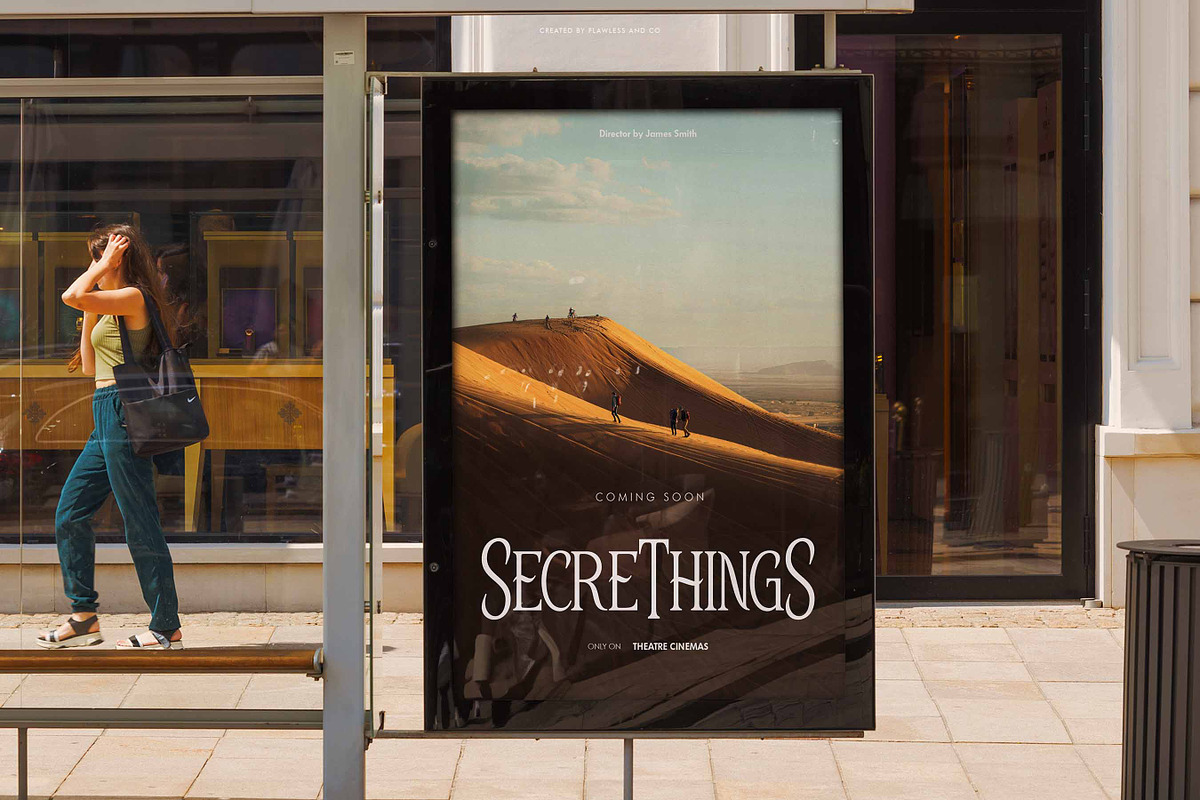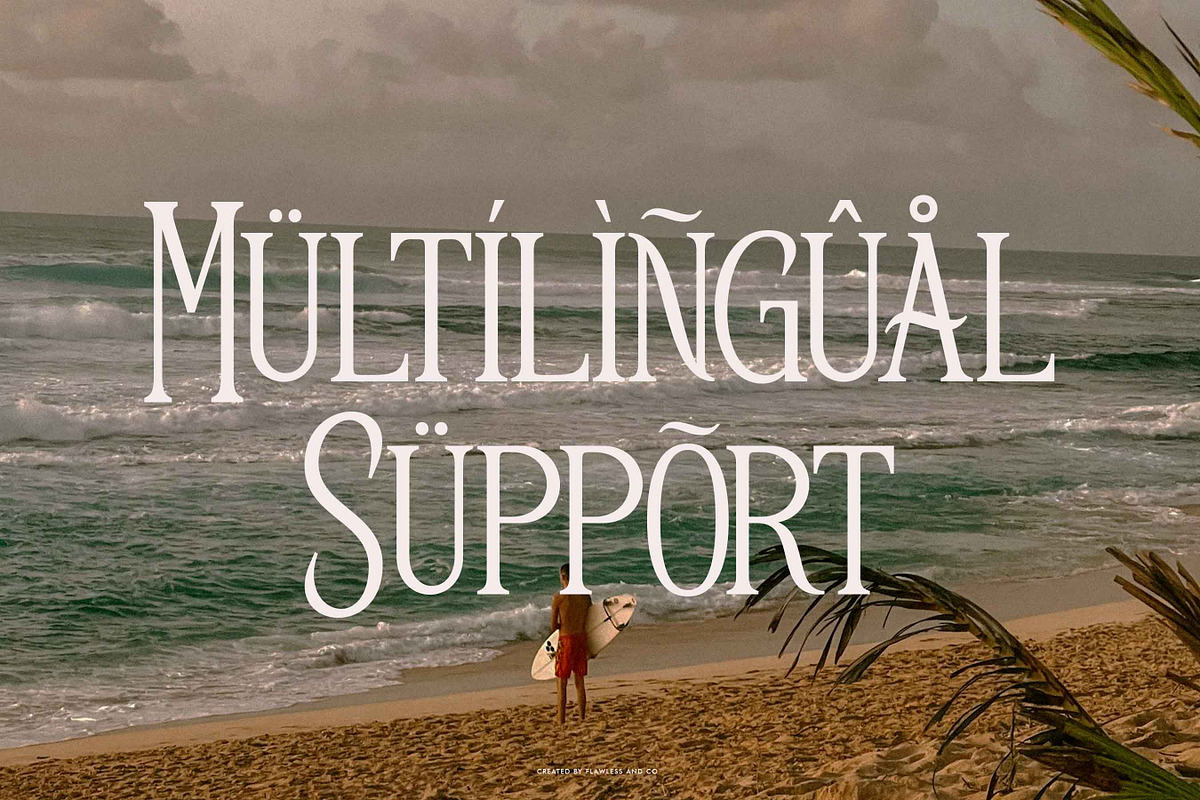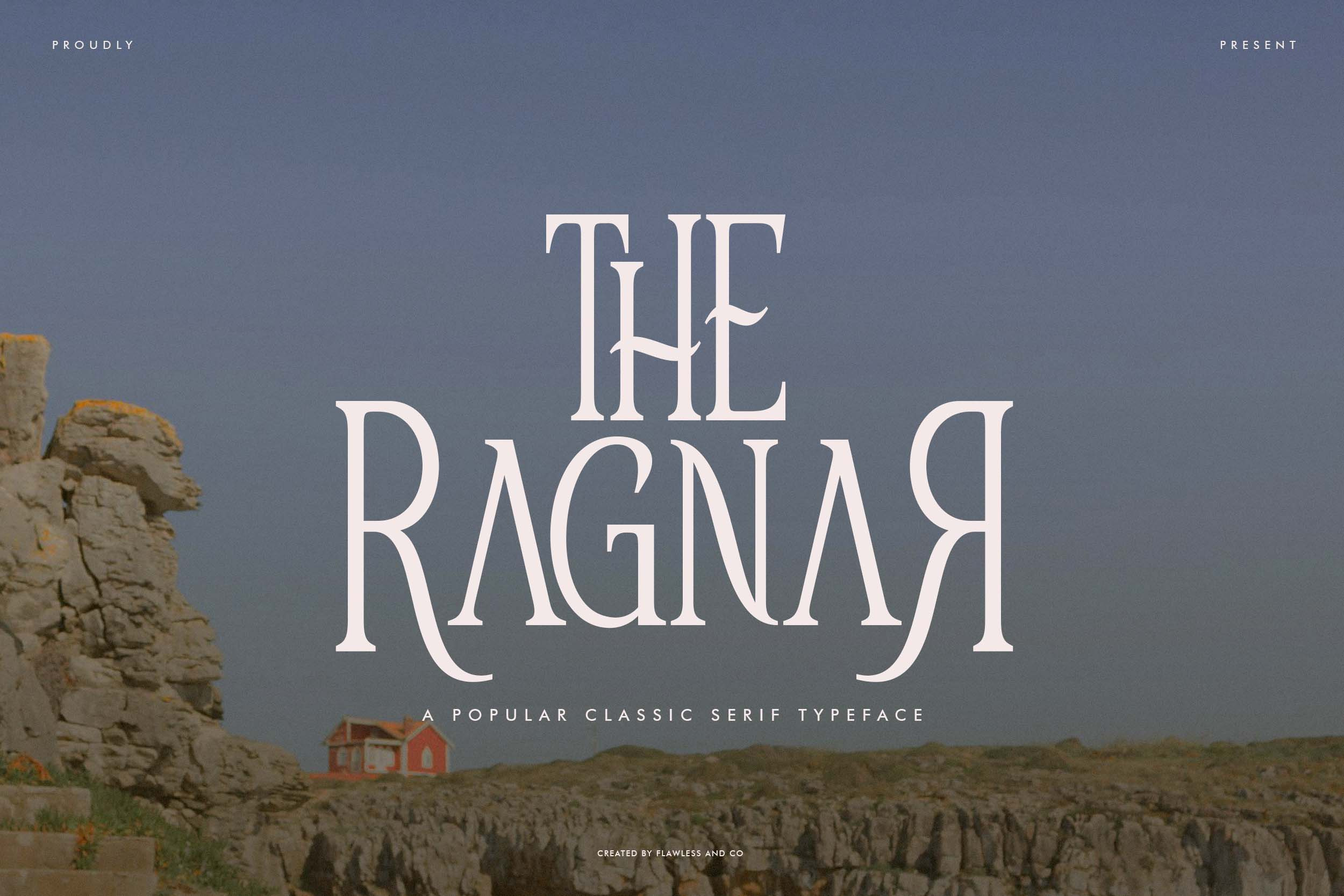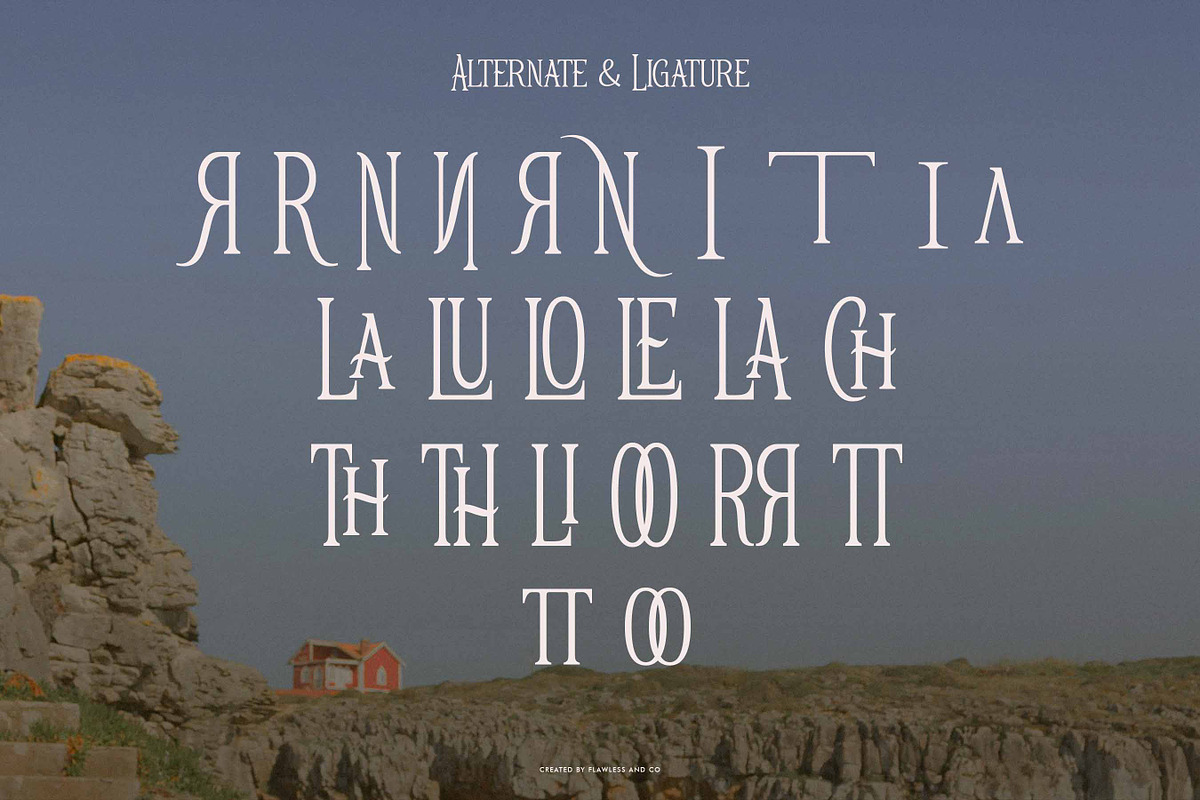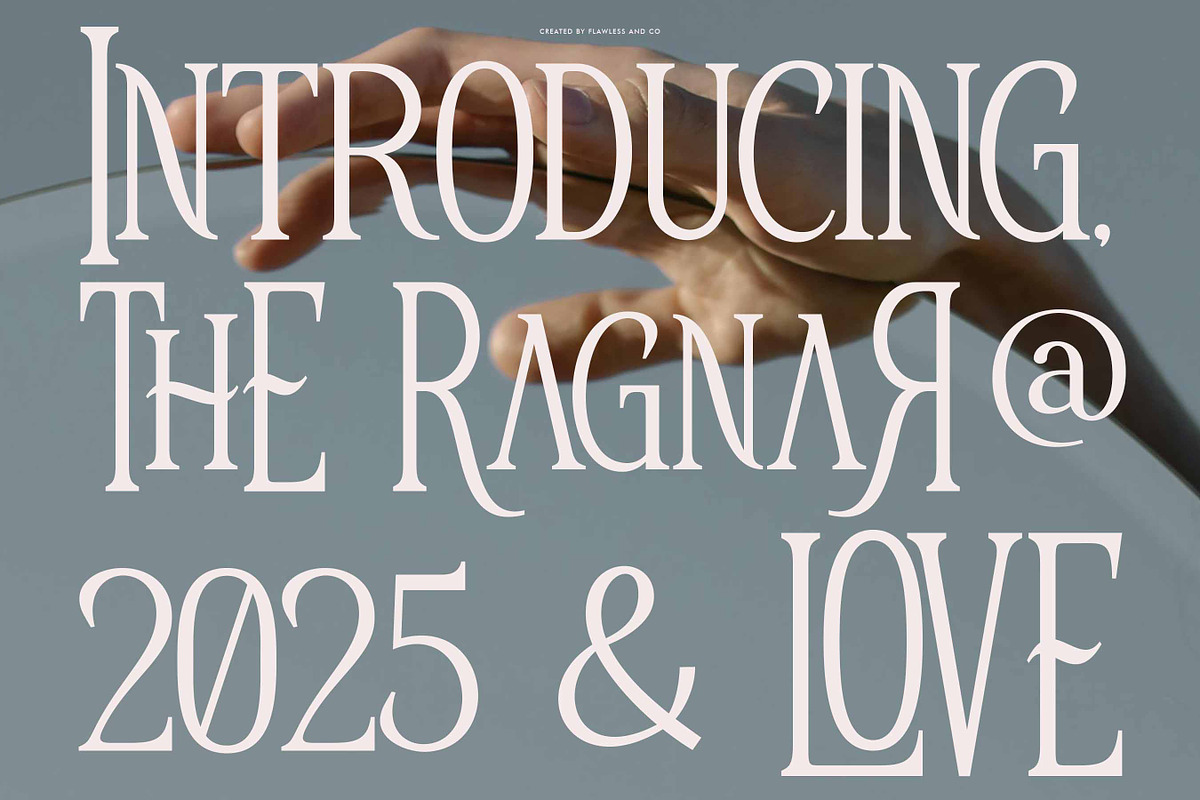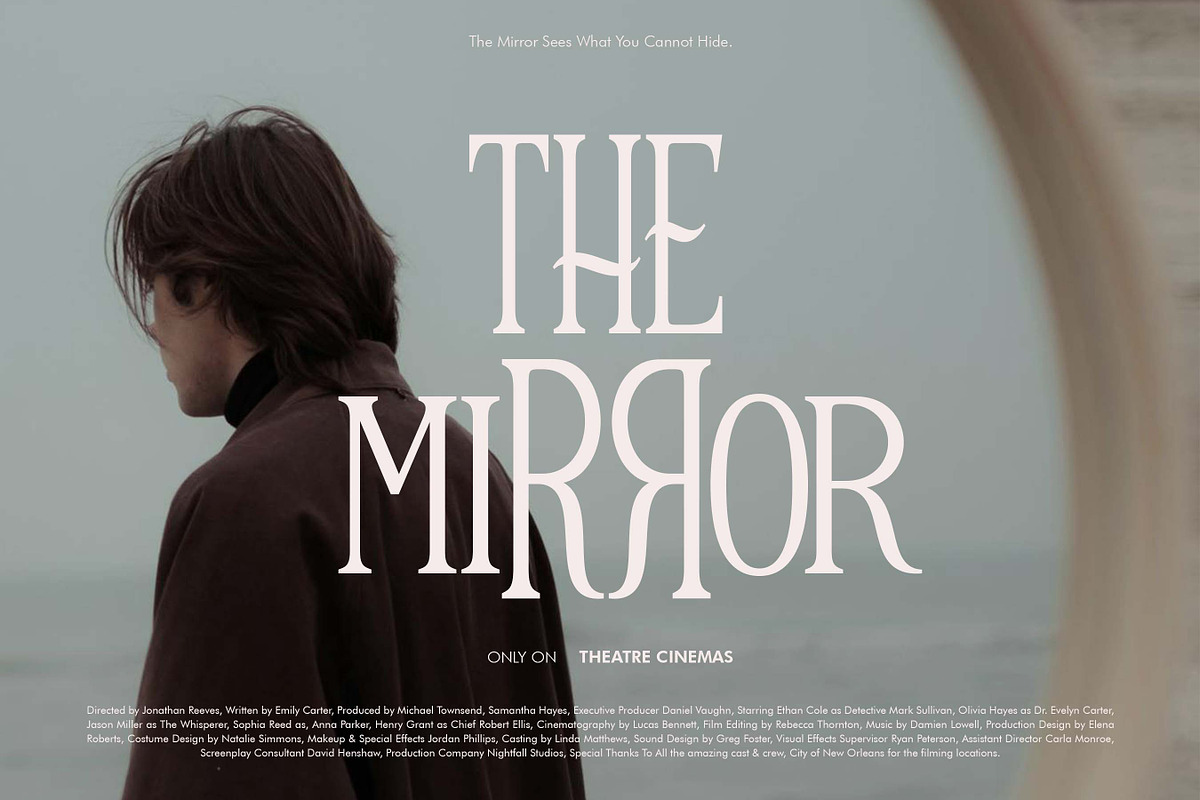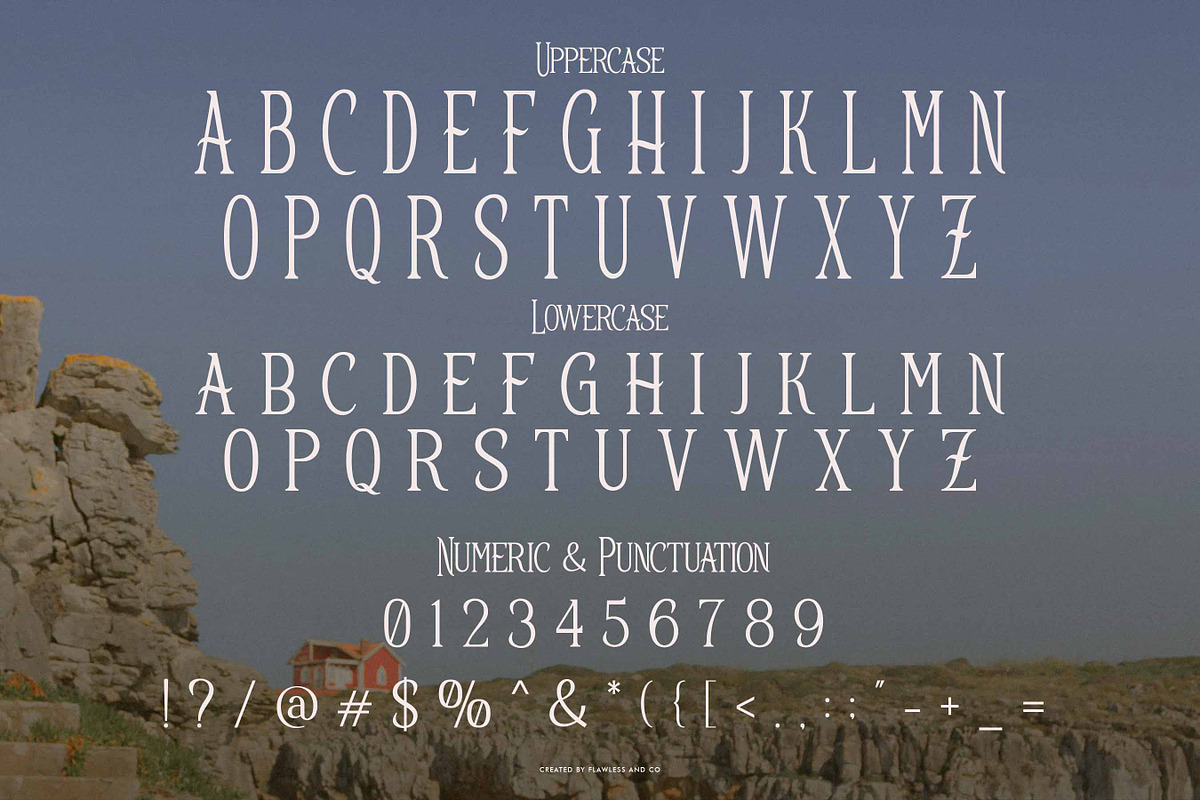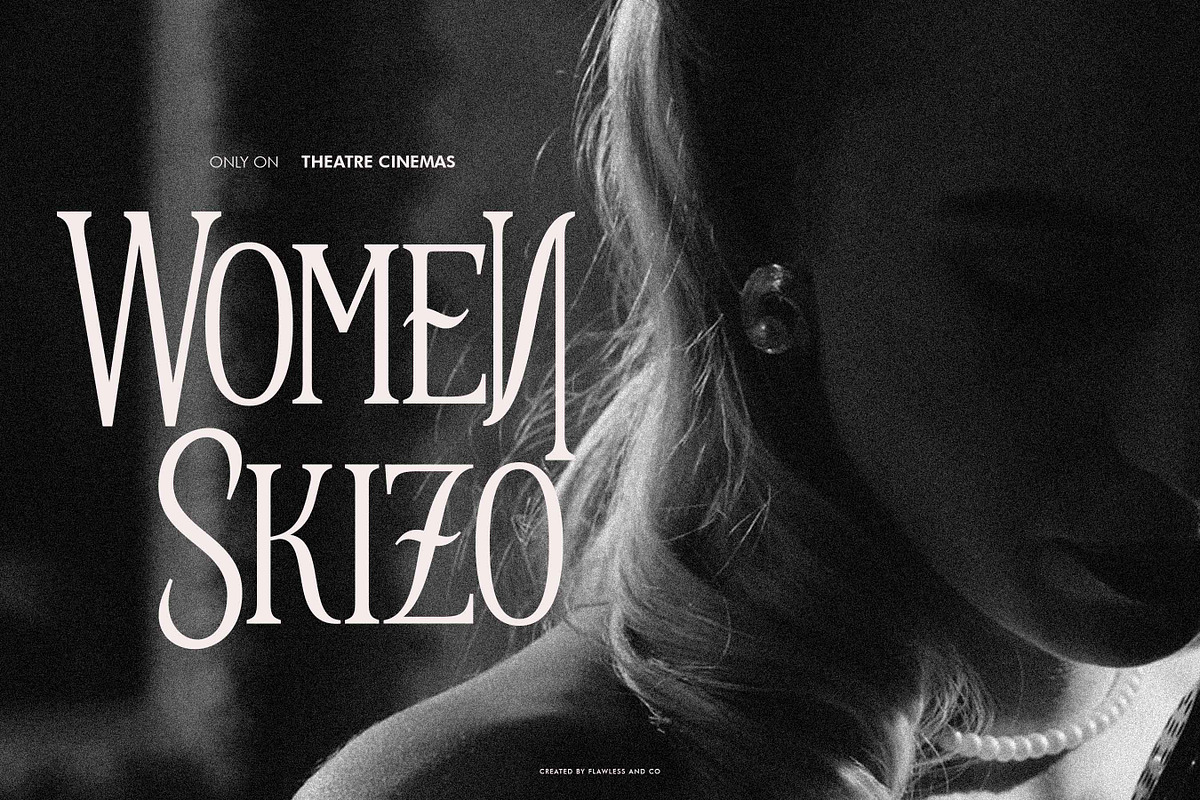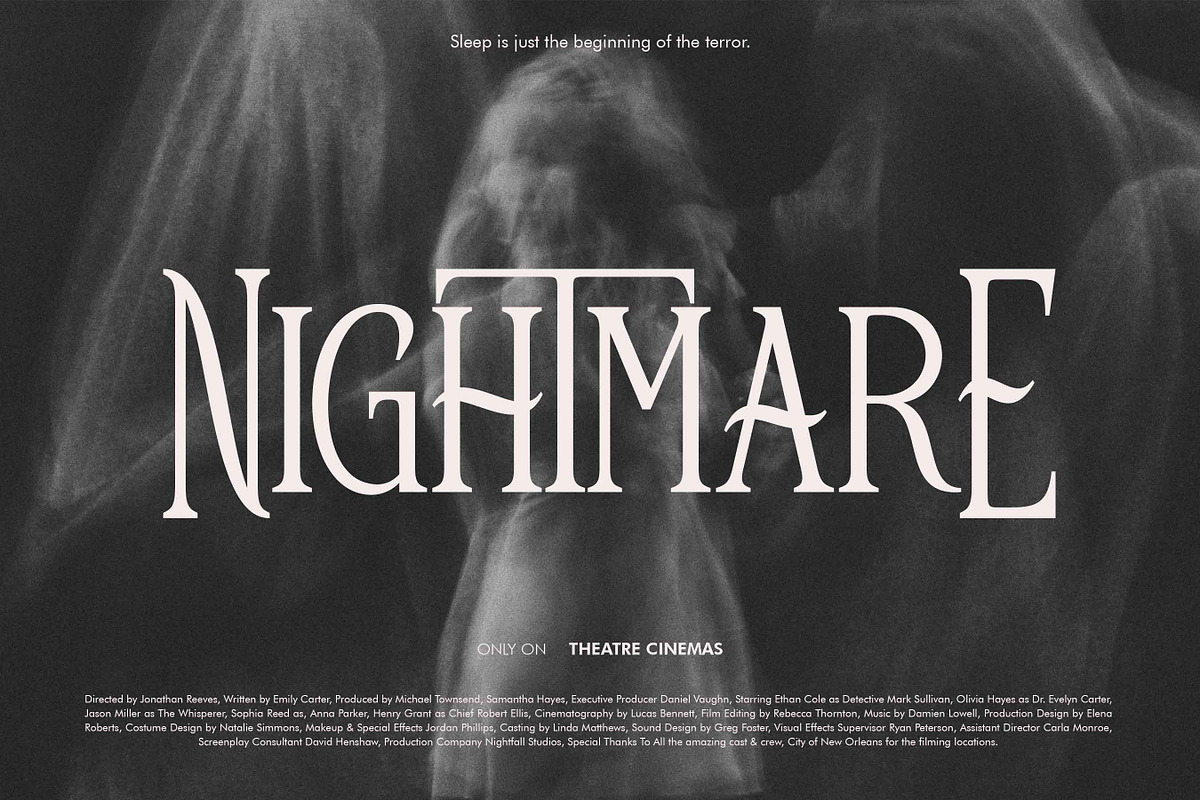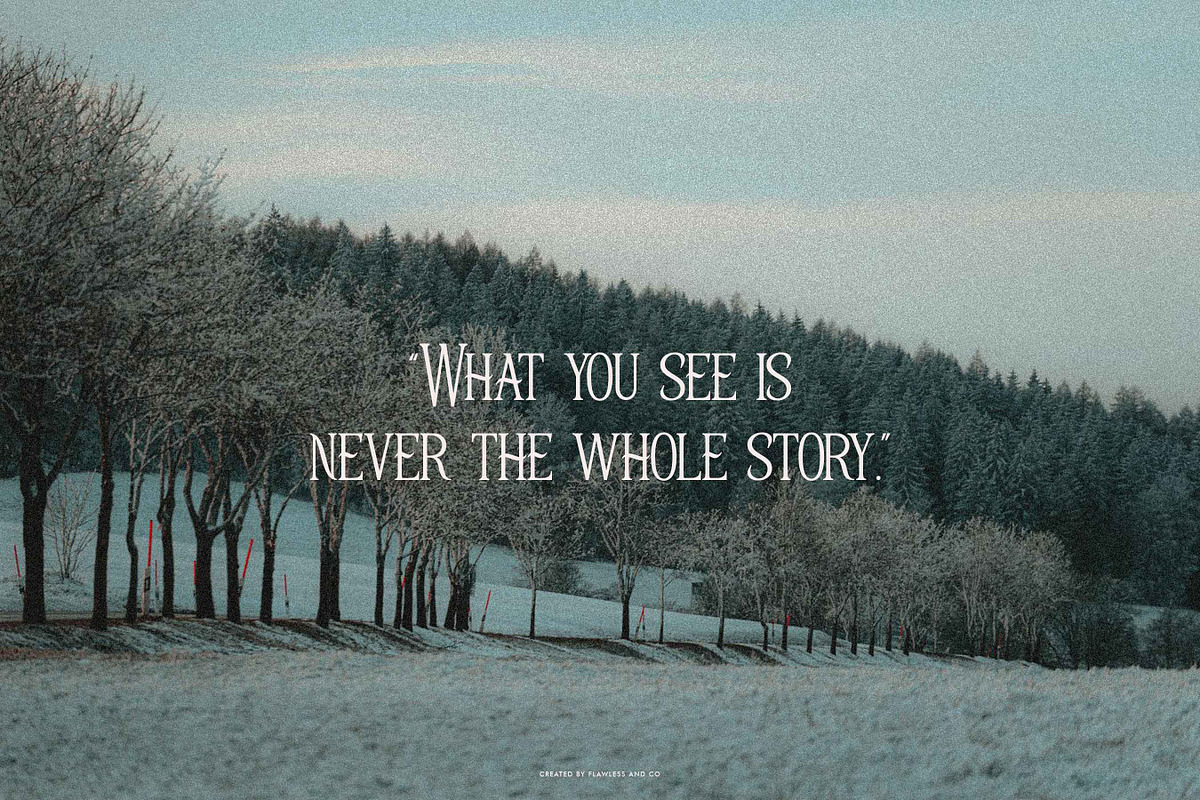
The Ragnar - Classic Serif Font
The Ragnar is a classic serif font that embodies timeless elegance and sophistication. With its well-defined serifs and balanced proportions, this font is suitable for book covers, editorial designs, branding, vintage-inspired logos, certificates, invitations, luxury packaging, and movie posters. Its refined look makes it perfect for projects that require a touch of tradition and prestige.
Multilingual Uppercase alphabet A-Z Lowercase alphabet a-z Numbers 0-9 Some punctuation Alternates & Ligatures